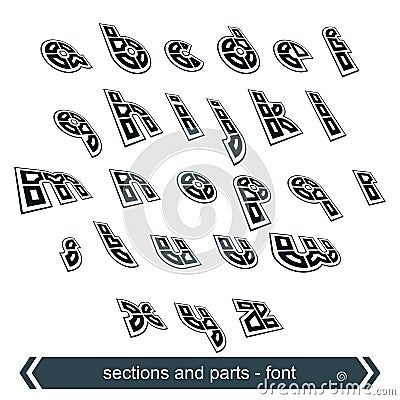
Typescript Retro Style, Technical 3D Font, Contemporary Cartoon Vector
Typescript retro style, technical 3D font, contemporary construct shift small letters.